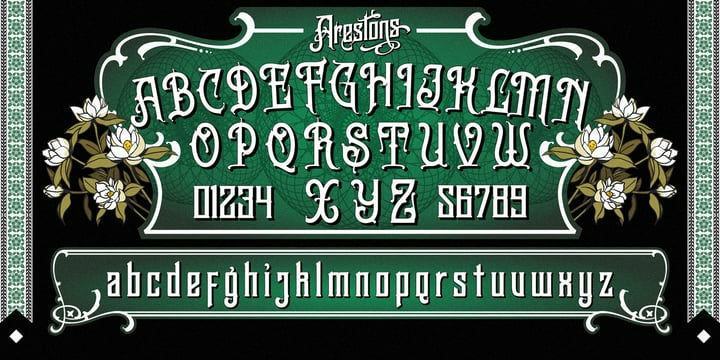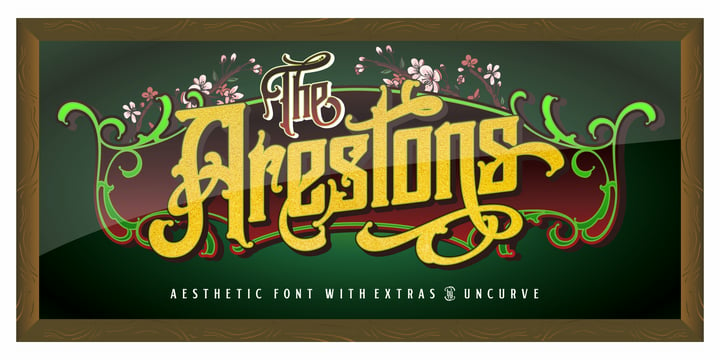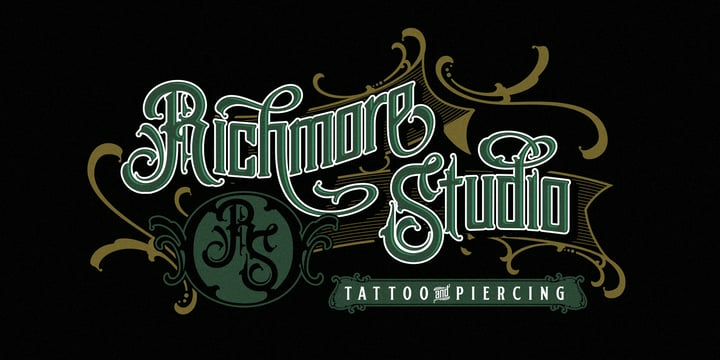
Arestons Font Family
Arestons Font FamilyArestons is an aesthetic vintage typography font, inspired from the past, elegant signage, gold leaf , sign painting and old label product.
Arestons comes with tons of alternates characters to make more eye cacthy .
It is suitable for authentic logos, headings, sign painting, posters,letterhead, branding, magazines, album covers, book covers, movies,
apparel design, flyers, greeting cards, product packaging, and more.
To make everyone enjoyed Arestons give you one extras font including ornament , catch word and some traditional badge.
If you use Areston with you imagination, you just cobine with the another font like script , serif or san serif font and adding some effect
finally.. BOOM..!! you get a great design for your project.